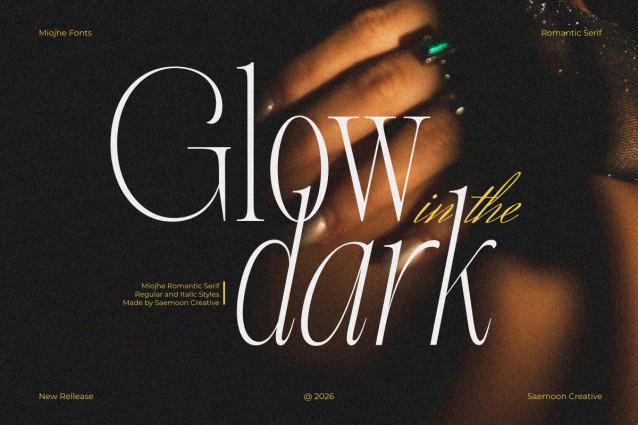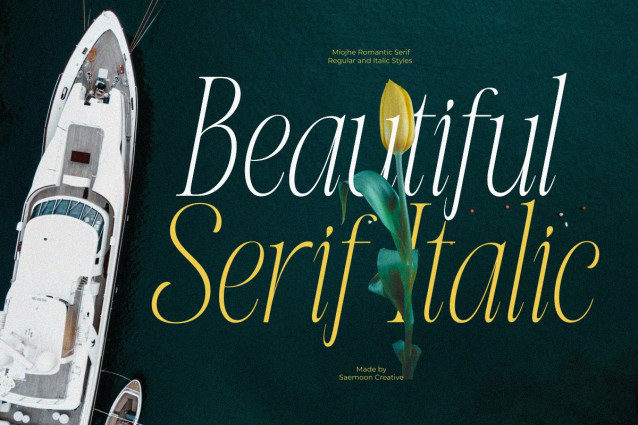
Miojhe Font
Miojhe Font is a romantic and elegant serif typeface designed to bring softness, charm, and timeless beauty to your creative projects. With graceful curves, refined details, and carefully crafted ligatures, Miojhe adds a natural flow and subtle uniqueness to every composition.
This font is perfect for wedding designs, branding, fashion projects, editorial layouts, invitations, logos, quotes, packaging, and other designs that need a warm and sophisticated touch. Miojhe works beautifully for both headlines and decorative typography.
Miojhe comes with Regular and Italic styles, giving you flexibility to create expressive layouts while keeping a balanced and harmonious look. The included ligatures help your typography feel more organic, elegant, and visually rich without extra effort.